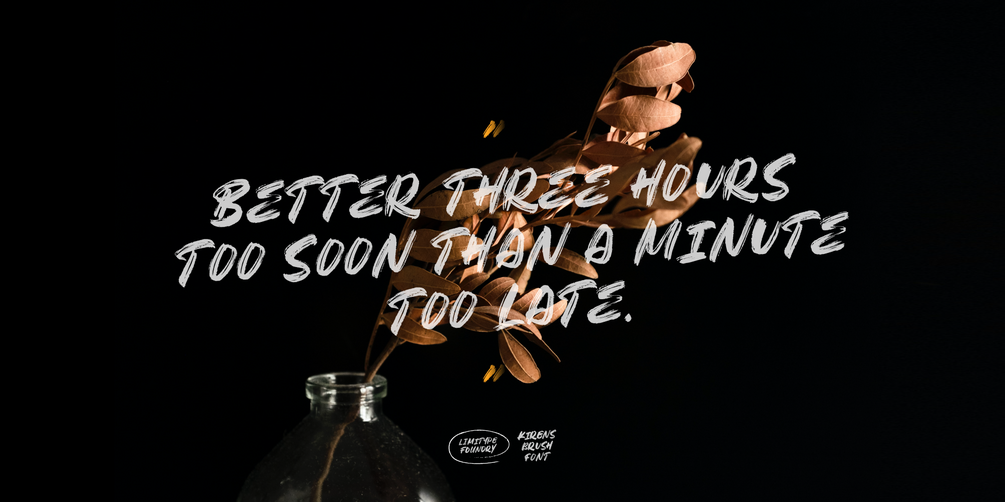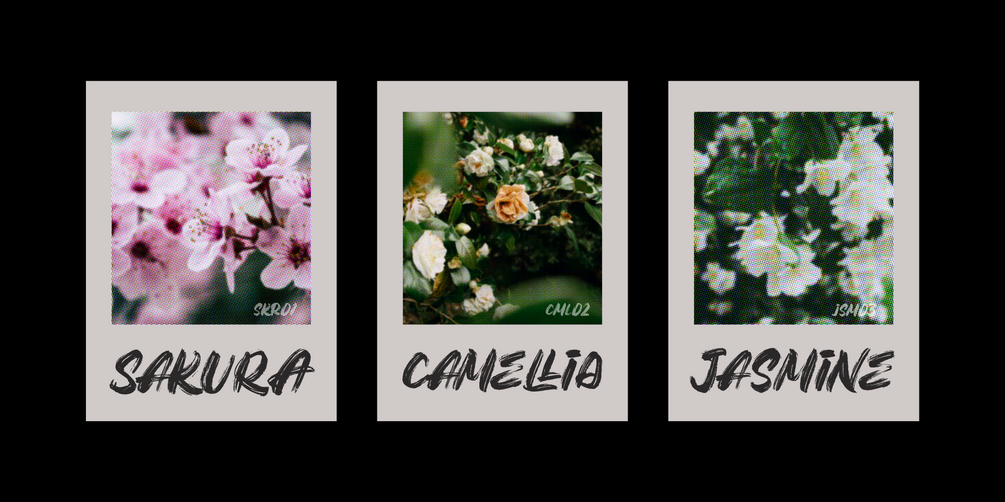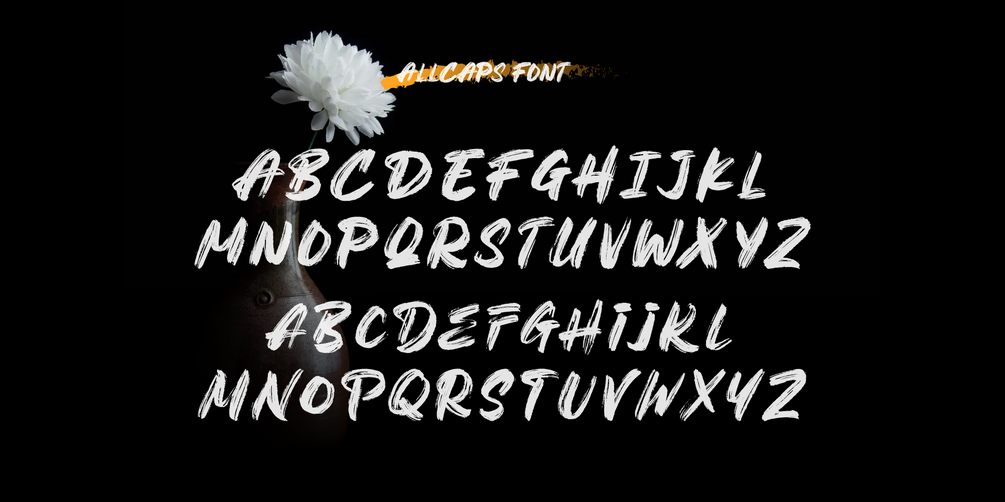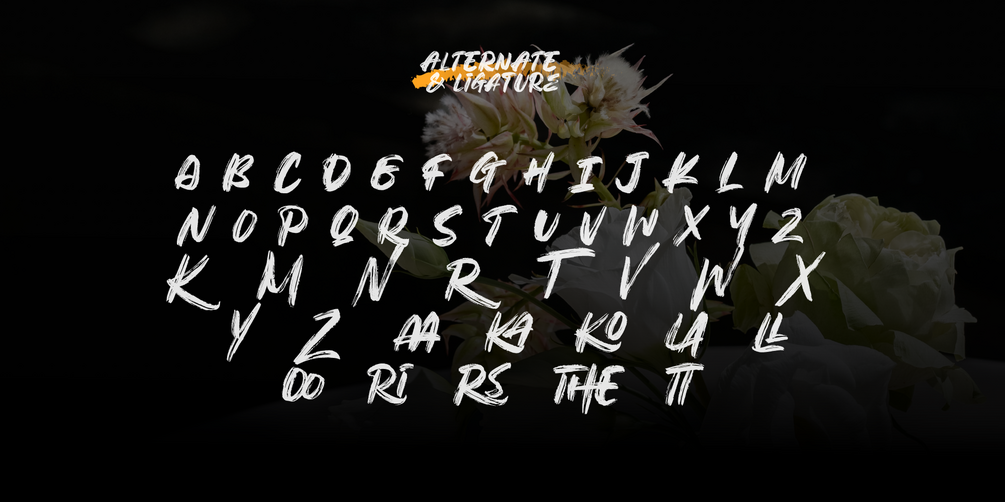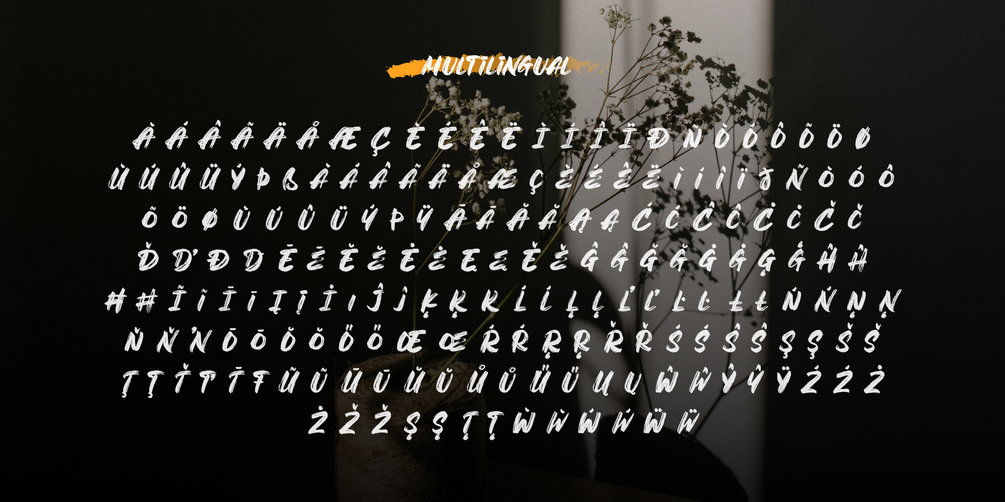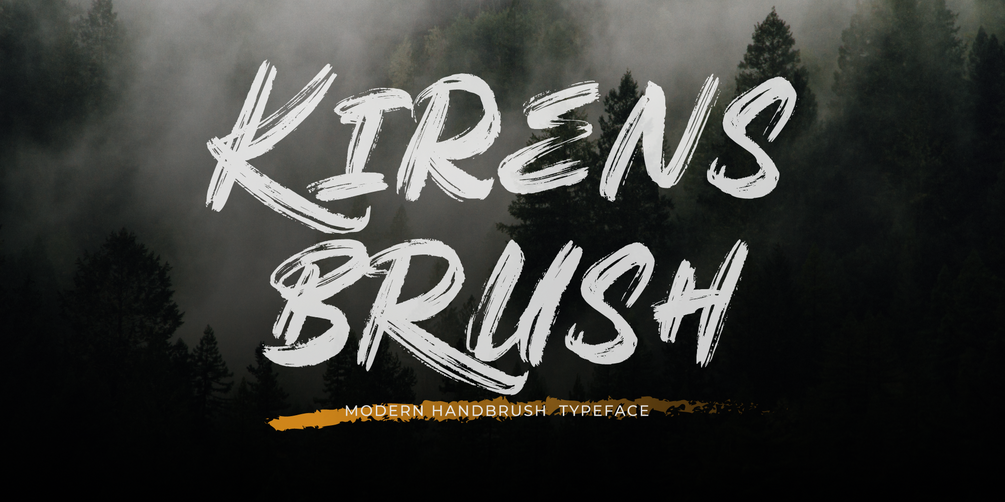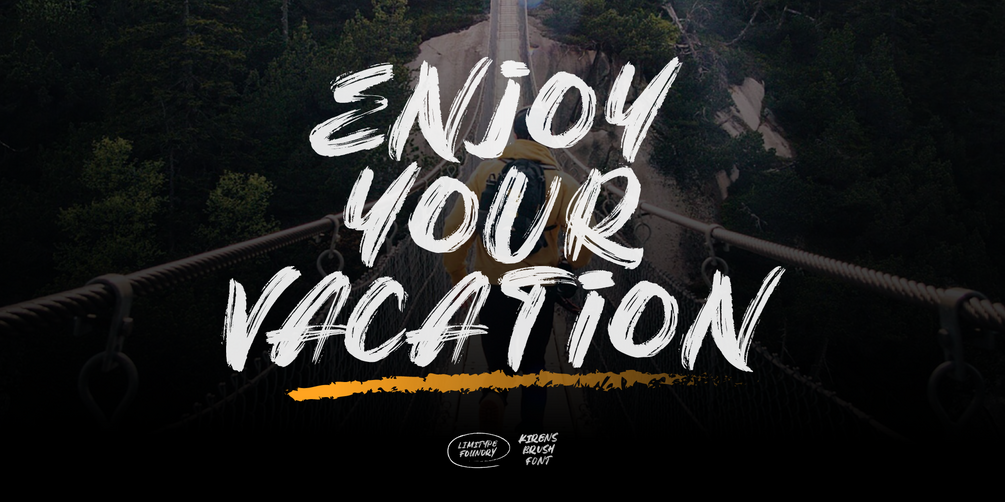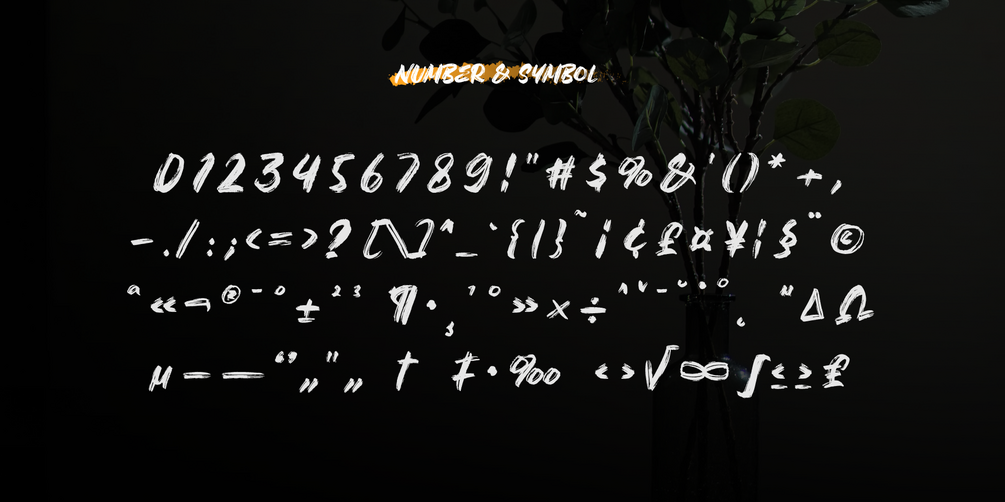
Kirens - Modern Handbrush Font
Kirens is a brush font made in a modern, bold, classic and textured handwriting style, suitable for all your design needs that require display typeface to make your design appear bold and stylish.
Kirens brush is equipped with:
- Allcaps Font
- Alternate
- Numbers
- Symbols
- ligatures
- Multilingual